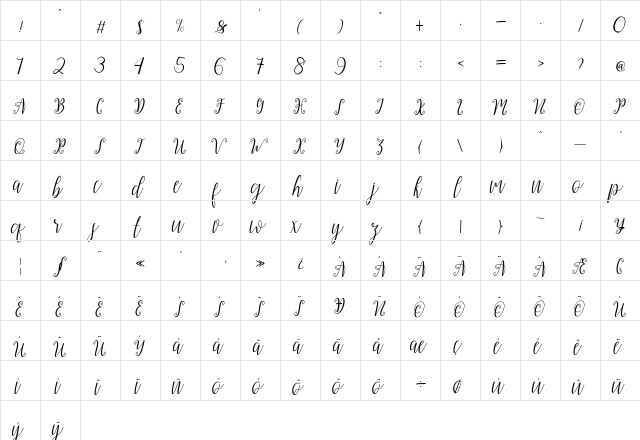
My Darling Script Regular
Design Context for My Darling Script Typeface
My Darling Script brings a calligraphic fluidity to the page — its connecting strokes and expressive curves give it an unmistakably human quality.
Font Pairing: Combine My Darling Script with a simple geometric sans for maximum contrast — the tension between flowing curves and clean structure is a classic typographic pairing.
Pro Tip: Use My Darling Script for short runs of text — names, titles, or taglines. Extended body copy in script faces tires the eye quickly.